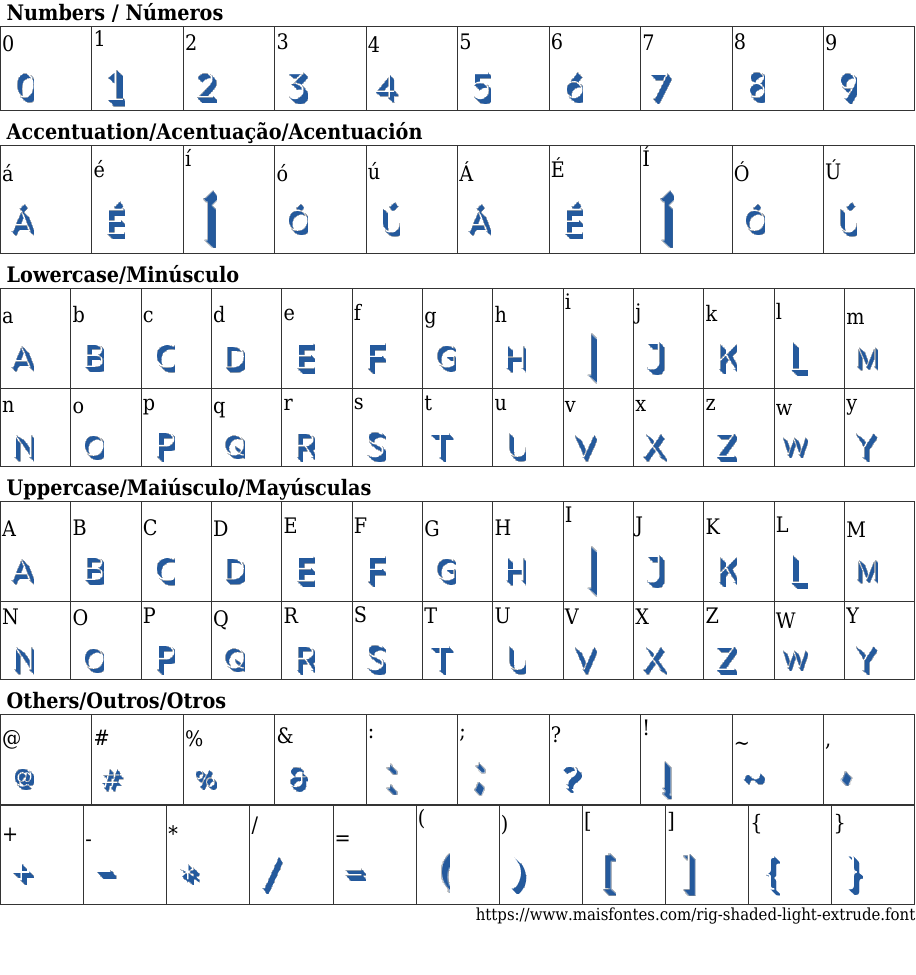
Rig Shaded Font Free . Web rig developed from a quest to find ideal letter shapes for a shaded typeface while retaining their geometric principles and legibility. Web rig shaded light face:
Every professional designer needs a good source to leverage content in their art. Web discover the free rig shaded medium face font at free font download ! The legibility of the message that the art wants to convey.
Web discover the free rig shaded medium face font at free font download ! Web what fonts are similar to rig shaded bold face? Web rig shaded light face: Its innovative styles stack together to produce a myriad of.
Rig Shaded Font Free - The legibility of the message that the art wants to convey. Its innovative styles stack together to produce a myriad of. Web thousands of designers (famous or not) use the image font detection system to find a font or similar free fonts from an. Installable on pc, mac, linux, ios, and android platforms. Web rig shaded light face:
Rig Shaded Font Free - Its innovative styles stack together to produce a myriad of. Web discover the free rig shaded medium face font at free font download ! Every professional designer needs a good source to leverage content in their art. Installable on pc, mac, linux, ios, and android platforms. Web rig developed from a quest to find ideal letter shapes for a shaded.
Rig Shaded Font Free - Installable on pc, mac, linux, ios, and android platforms. Every professional designer needs a good source to leverage content in their art. Web discover the free rig shaded medium face font at free font download ! Web rig developed from a quest to find ideal letter shapes for a shaded typeface while retaining their geometric principles and legibility. Web thousands.
Rig Shaded Font Free - Web what fonts are similar to rig shaded bold face? Installable on pc, mac, linux, ios, and android platforms. Every professional designer needs a good source to leverage content in their art. The legibility of the message that the art wants to convey. Web rig developed from a quest to find ideal letter shapes for a shaded typeface while retaining.
Rig Shaded Font Free - 100 free fonts alternatives to rig shaded bold face Web thousands of designers (famous or not) use the image font detection system to find a font or similar free fonts from an. Web rig shaded light face: Its innovative styles stack together to produce a myriad of. The legibility of the message that the art wants to convey.
Rig Shaded Font Free - Web thousands of designers (famous or not) use the image font detection system to find a font or similar free fonts from an. Web rig developed from a quest to find ideal letter shapes for a shaded typeface while retaining their geometric principles and legibility. The legibility of the message that the art wants to convey. Installable on pc, mac,.
Rig Shaded Font Free - Web what fonts are similar to rig shaded bold face? Web discover the free rig shaded medium face font at free font download ! Every professional designer needs a good source to leverage content in their art. Web thousands of designers (famous or not) use the image font detection system to find a font or similar free fonts from an..
Rig Shaded Font Free - Web rig shaded light face: Its innovative styles stack together to produce a myriad of. Web discover the free rig shaded medium face font at free font download ! Web rig developed from a quest to find ideal letter shapes for a shaded typeface while retaining their geometric principles and legibility. The legibility of the message that the art wants.
Rig Shaded Font Free - Web what fonts are similar to rig shaded bold face? The legibility of the message that the art wants to convey. Its innovative styles stack together to produce a myriad of. Web rig shaded light face: Every professional designer needs a good source to leverage content in their art.
Rig Shaded Font Free - Web what fonts are similar to rig shaded bold face? The legibility of the message that the art wants to convey. 100 free fonts alternatives to rig shaded bold face Web discover the free rig shaded medium face font at free font download ! Its innovative styles stack together to produce a myriad of.
Rig Shaded Font Free - Its innovative styles stack together to produce a myriad of. Web rig shaded light face: 100 free fonts alternatives to rig shaded bold face Web discover the free rig shaded medium face font at free font download ! The legibility of the message that the art wants to convey.
Rig Shaded Font Free - Rig shaded light face is the perfect font for. Every professional designer needs a good source to leverage content in their art. Web rig shaded light face: Installable on pc, mac, linux, ios, and android platforms. Web what fonts are similar to rig shaded bold face?
Rig Shaded Font Free - The legibility of the message that the art wants to convey. Its innovative styles stack together to produce a myriad of. 100 free fonts alternatives to rig shaded bold face Web thousands of designers (famous or not) use the image font detection system to find a font or similar free fonts from an. Web what fonts are similar to rig.